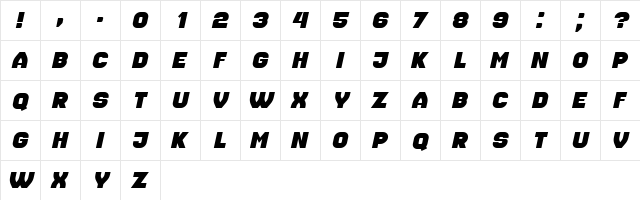
Housebreak Italic
Design Context for Housebreak Typeface
Housebreak offers clean, dependable letterforms without strong stylistic allegiance, making it a practical choice for designers who need flexibility. The slanted form adds forward momentum and visual energy.
Pro Tip: Use Housebreak for emphasis, pull quotes, and subheadings where its slanted energy can add rhythm to the layout.